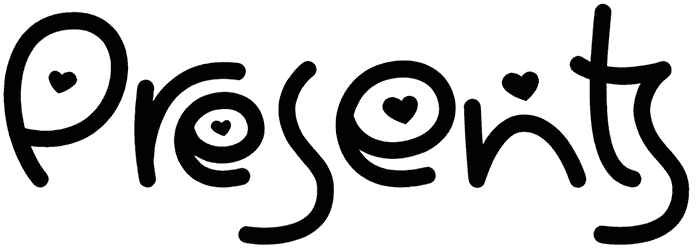
Presents Font
Presents can be the ultimate expression of your love in the form of writing that depicts passion and delivers love letters with heartfelt messages. This Valentine font has soft lines with challenging readability that can be used as a decorative element.
The little hearts surrounding each letter in this holiday font will surely capture the hearts and imaginations of anyone who sees it. So if you don’t need numbers to express your love, let Presents flourish on your poster, greeting card, or invitation.